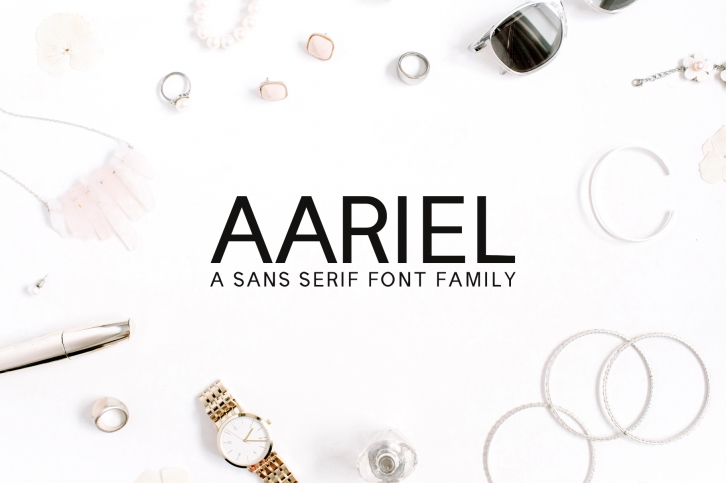
Aariel Sans Serif 7 Family Pack is a trendy and unique font with an authentic style. It was designed by Creativetacos and it's a great choice for creative people who need such a font. It was released on May 1, 2017 and the file size is 7.88 MB. Aariel Sans Serif 7 Family Pack will add an organic vibe to any design idea!